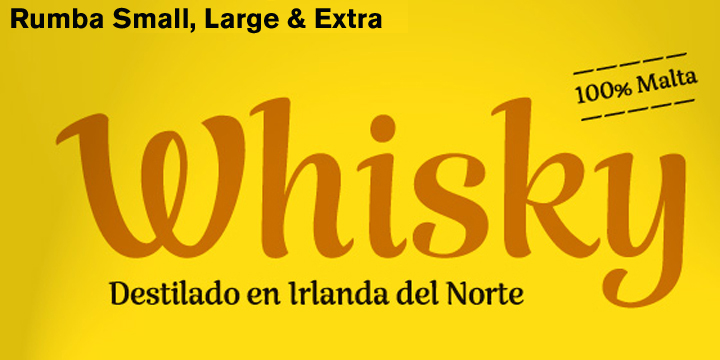
Bring vibrant energy to your designs with Rumba Font Free Download, a lively display typeface that captures the rhythm and passion of Latin dance. This bold, curvaceous font features dramatic swashes and playful letterforms perfect for festival posters, dance studio branding, tropical packaging, and any project needing a shot of fiery personality.
The Rumba Font Free Download comes packed with character:
4 stylistic sets for varied visual rhythms
12 decorative swashes for showstopping headlines
Contextual alternates that make words dance across the page
Perfect for salsa night flyers, Cuban restaurant menus, or carnival event branding
Whether you're designing a Zumba studio logo, a summer cocktail menu, or a Latin music album cover, this font will make your typography move to its own irresistible beat. The Rumba Font Free Download includes extensive Latin language support and works beautifully for both digital and print applications.